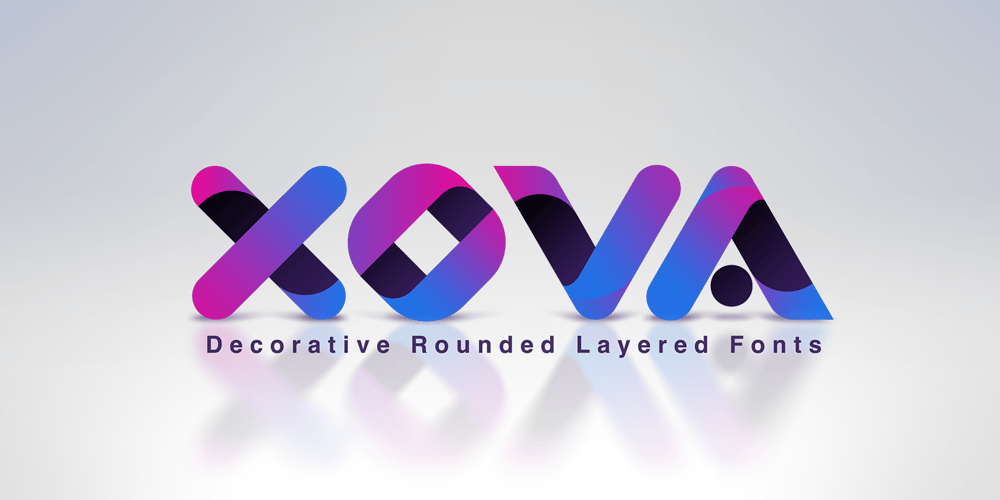
Xova Layered Font Family was designed by Antonio Cerri and published by Cerri Antonio. Xova Layered contains 5 styles and family package options. XOVA Base, Color One, Color Two, Color Three and Color Four, is a 5 font system that can be layered in different ways to create infinite title effects used commonly in poster and 3D logo design. XOVA’s layer combinations give you complete control in producing styles like, modern, 3D, beveled. It can be used alone and/or in layered and allows you adjust leading and kerning. Each font contains the similar metrics, so when your title is set, copy and paste-in-place to create layers of different weights/styles to build out your desired effect. XOVA works great in any graphics application that allows you to utilize layers or 3D effects.